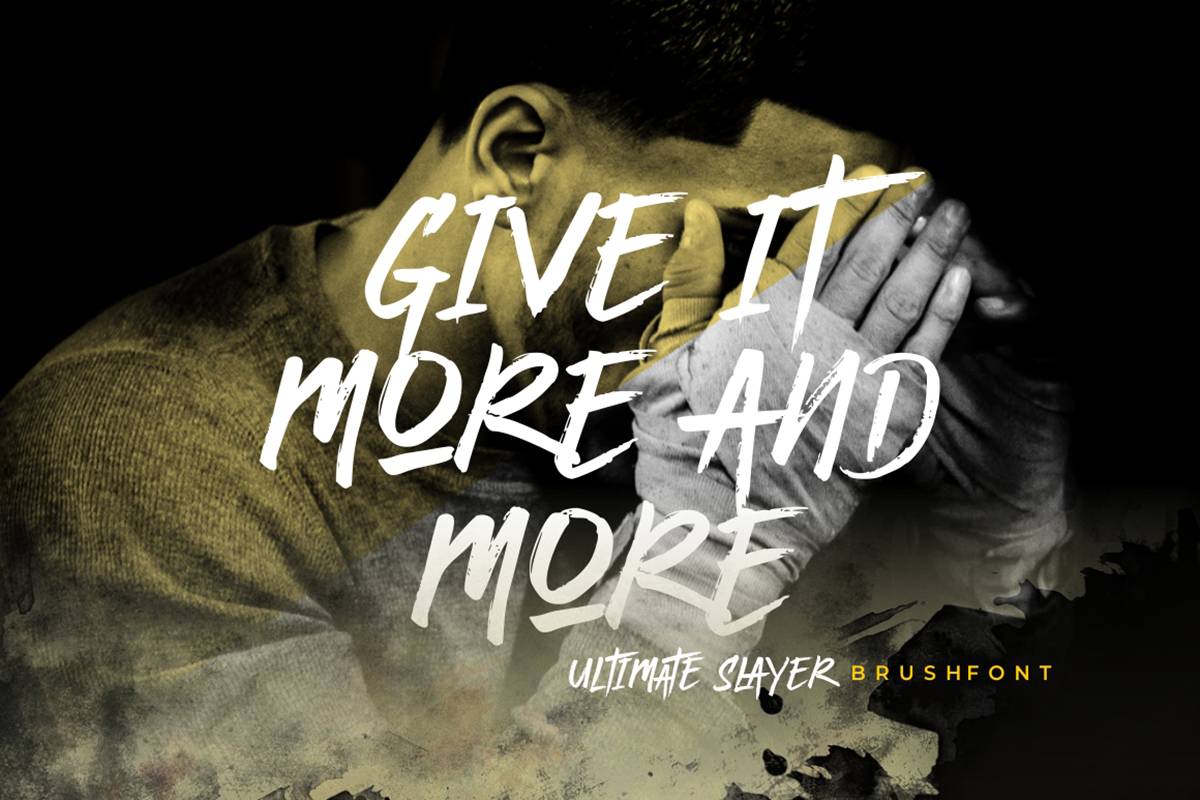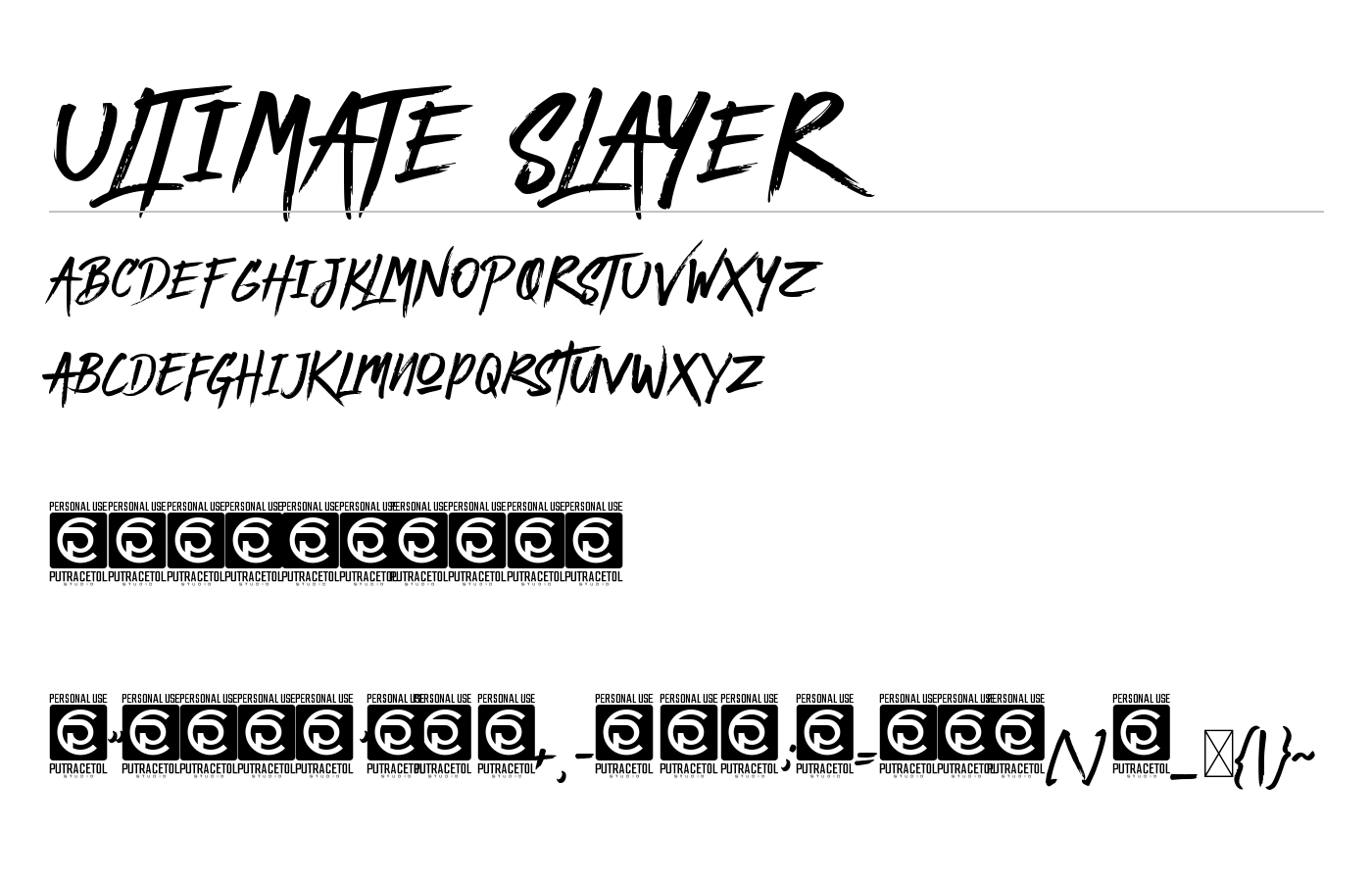
Ultimate Slayer is an edgy, bold brush script font with a dynamic, hand-painted feel, featuring sharp, textured strokes and an energetic flow. Its irregular, jagged letterforms convey a rebellious, intense personality, making it ideal for creative projects like posters, music branding, and urban fashion where a rough, striking impact is desired. This font works best in large display settings where its raw, powerful style can truly stand out.
Ultimate Slayer Font
About Ultimate Slayer Font
| Font family | Ultimate Slayer Font |